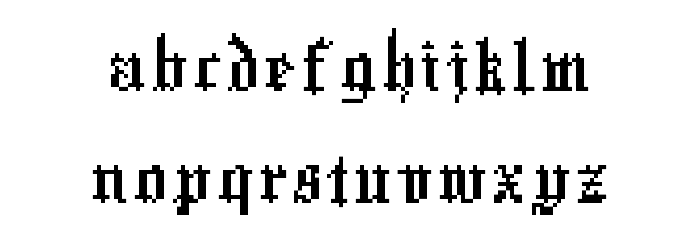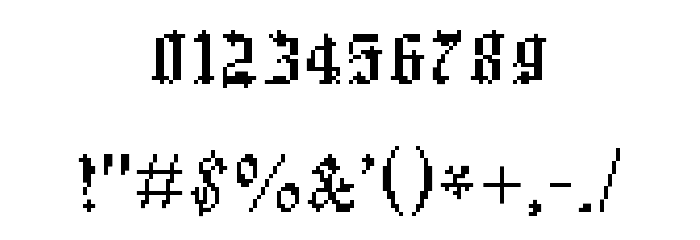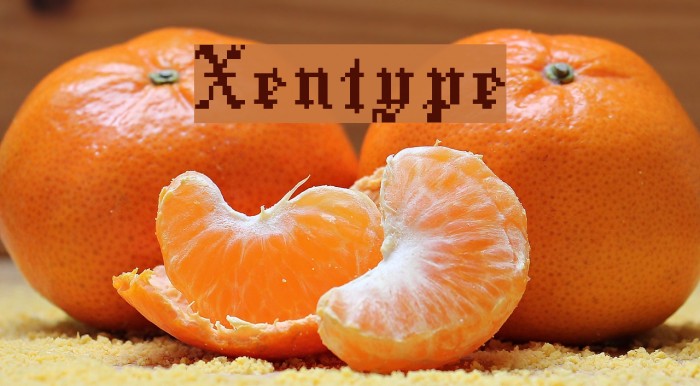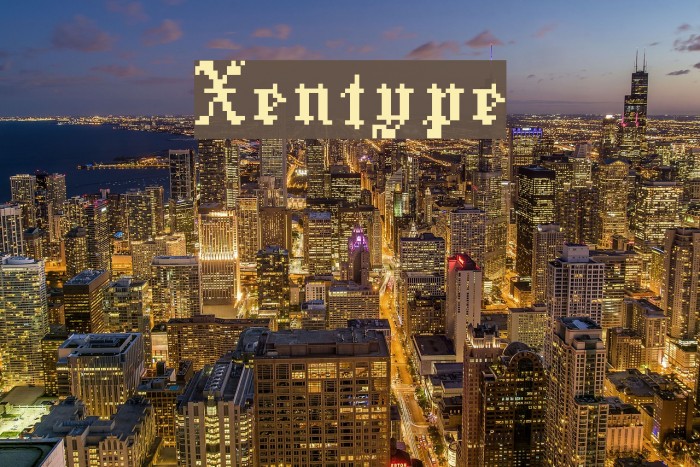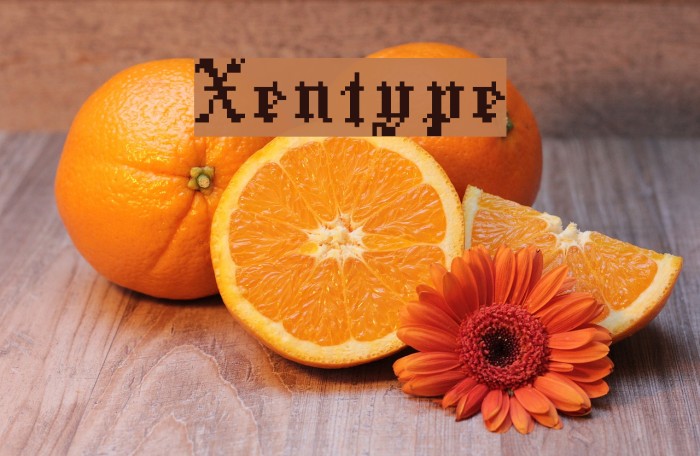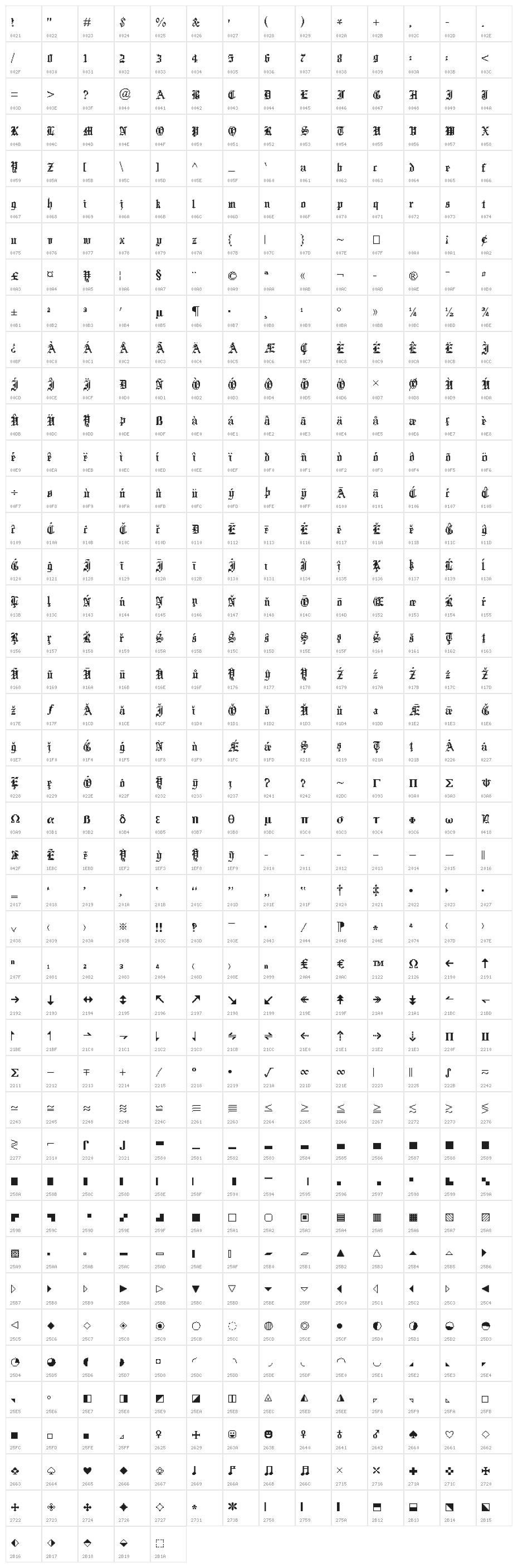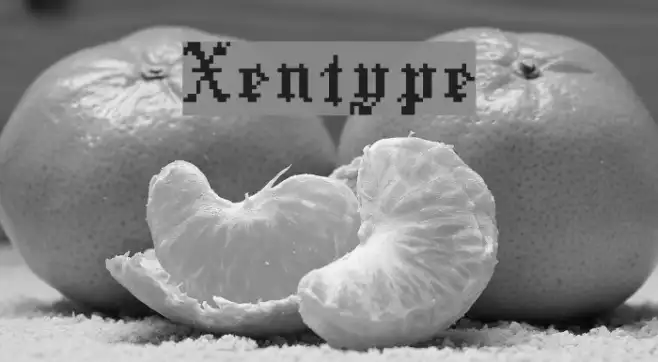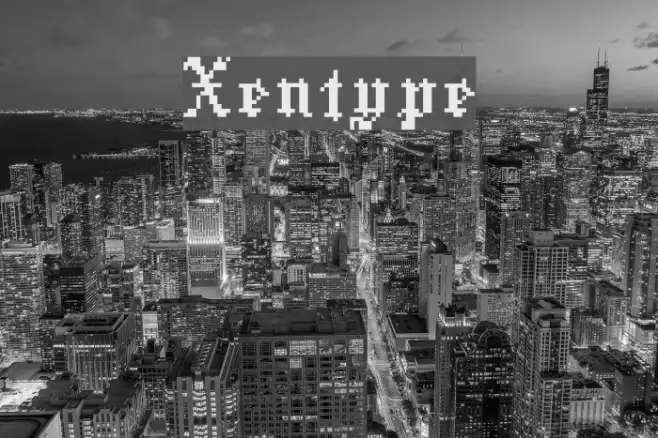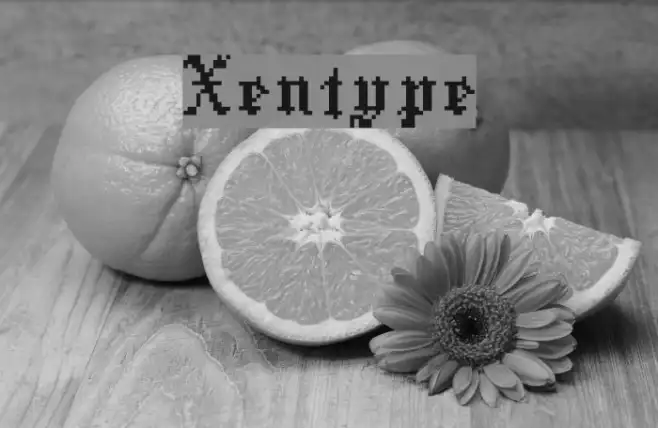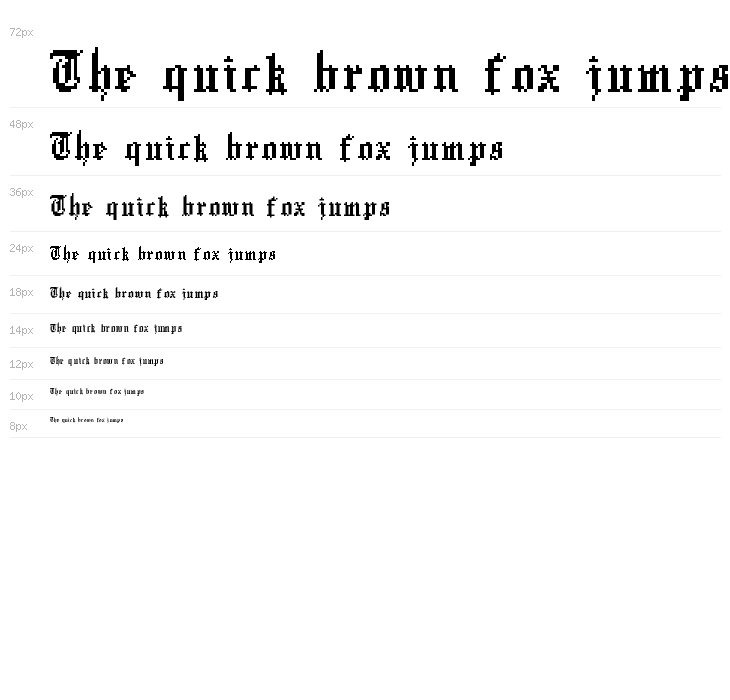
Xentype Font
This font exhibits a bold and intricate design, reminiscent of traditional blackletter styles. The characters are highly stylized with sharp angles and decorative elements, giving it a gothic and medieval appearance. The uppercase letters are particularly ornate, with elaborate serifs and flourishes that add to the overall complexity of the design. The lowercase letters maintain the same level of detail, ensuring consistency throughout the typeface. Numbers and special characters are also designed with the same intricate style, making this font suitable for projects that require a dramatic and historical aesthetic.
A bold, intricate blackletter-style font with gothic and medieval influences.
- Proposed Projects: Ideal for historical-themed designs, gothic art, book covers, posters, and branding that requires a dramatic flair.
- Category: Blackletter
- Overall Style: Vintage